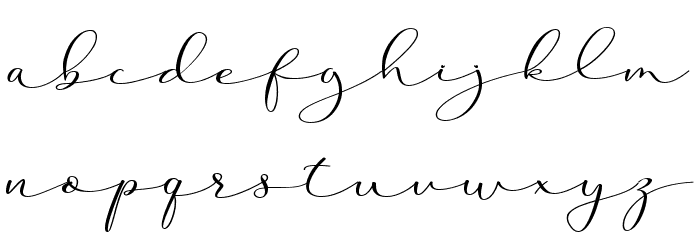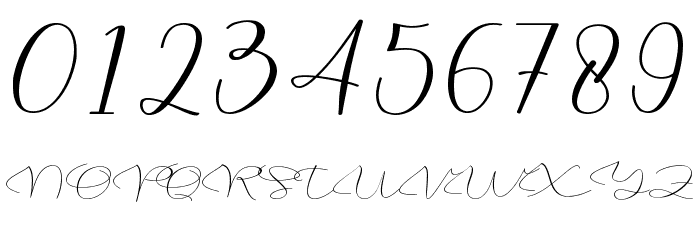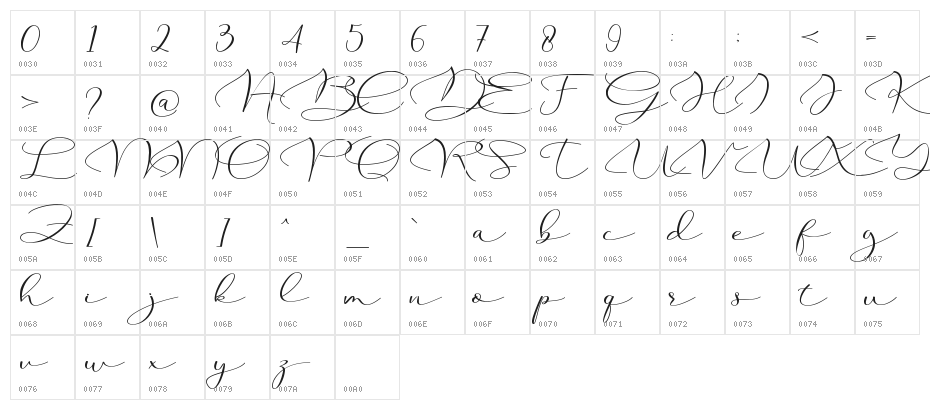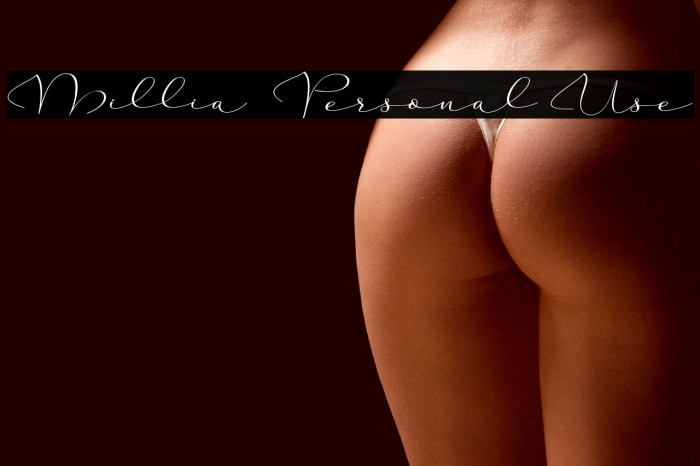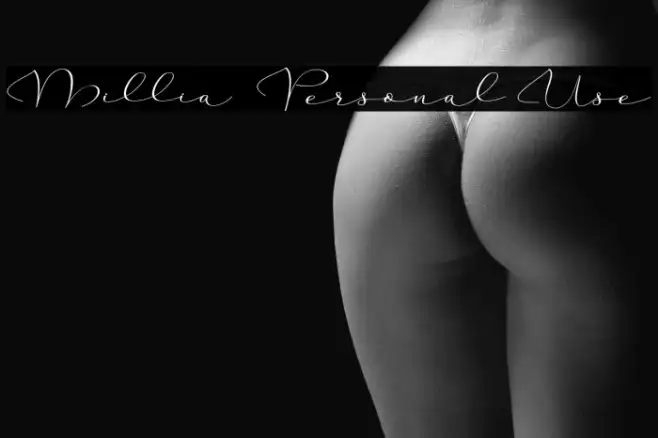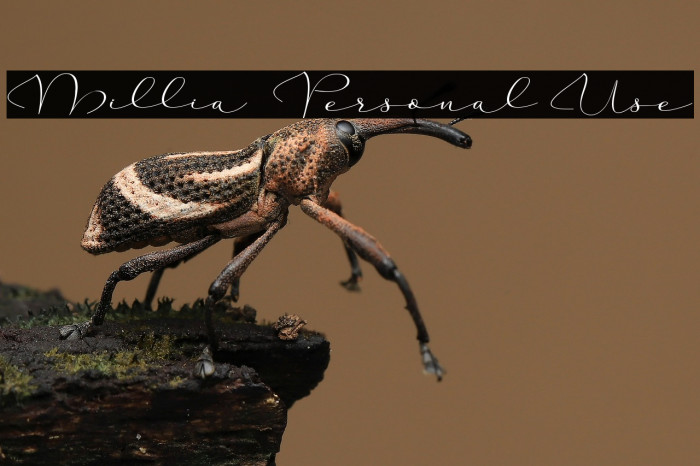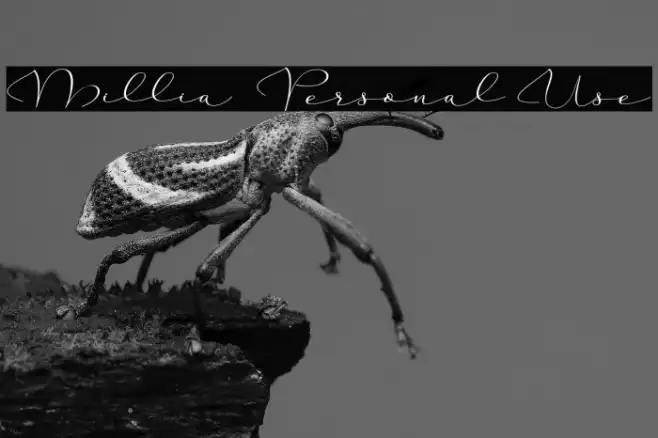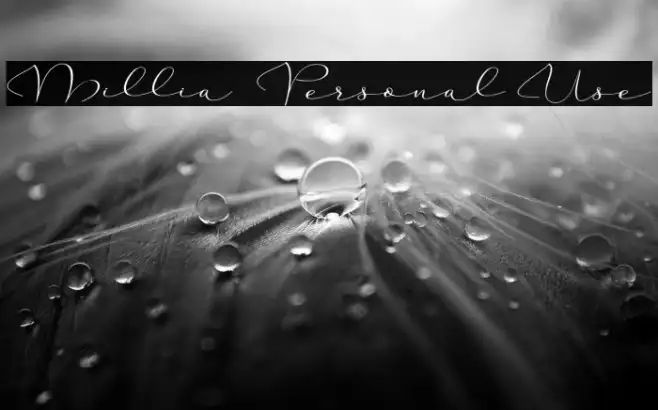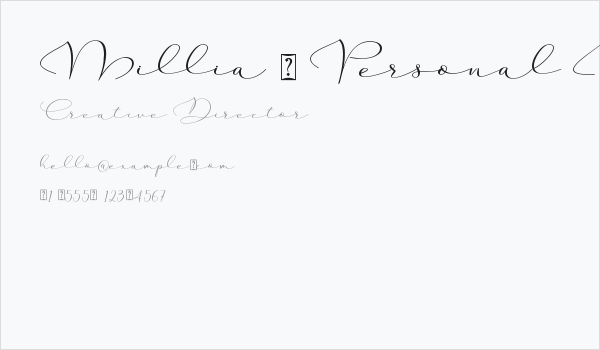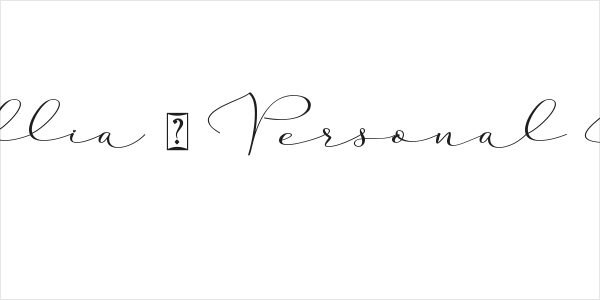
Millia - Personal Use Font
This elegant script font features a flowing, cursive style with delicate, interconnected letters. The uppercase characters exhibit a graceful, looping design, while the lowercase letters maintain a consistent, fluid motion. The numerals are stylishly curved, complementing the overall aesthetic. The font's thin strokes and gentle curves create a sophisticated and refined appearance, ideal for adding a touch of elegance to any project. Its decorative nature makes it suitable for formal invitations, branding, and other creative applications where a personal, handwritten touch is desired.
A graceful, cursive script font with elegant, flowing letters.
- Proposed Projects: Ideal for wedding invitations, branding, greeting cards, and elegant stationery.
- Overall Style: Elegant, Decorative
- Use Case: Headlines, Invitations, Branding